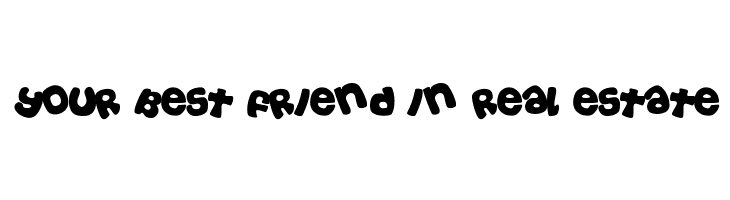
Aliey PERSONAL USE ONLY Bold Italic Font
- Font: Aliey PERSONAL USE ONLY Bold Italic
( Fonts by AJ Palmer )
A playful, bold font with a whimsical, hand-drawn style and rounded, irregular shapes.